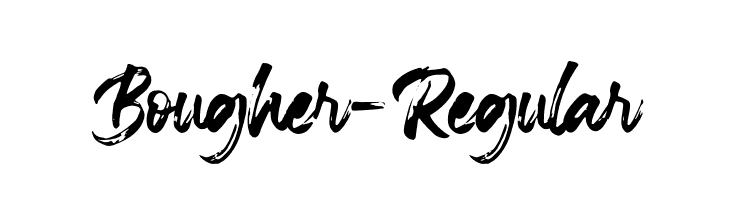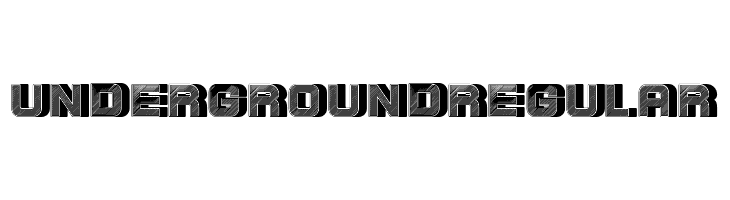
A modern, elegant script font with graceful curves and decorative flourishes.
A bold, playful font with a three-dimensional outline effect.
A calligraphic font with elegant curves and sharp serifs.
An elegant and sophisticated font with flowing lines and a slightly slanted style.
An elegant script font with flowing lines and intricate swashes.
A bold, brush-style font with dynamic, hand-painted strokes.
A bold, geometric font with a modern and robust style.
A bold, textured font with a hand-drawn, brush stroke appearance.
A playful, hand-drawn font with tall, narrow letters and whimsical cat silhouettes.
A bold, geometric font with a digital, arcade-style design.